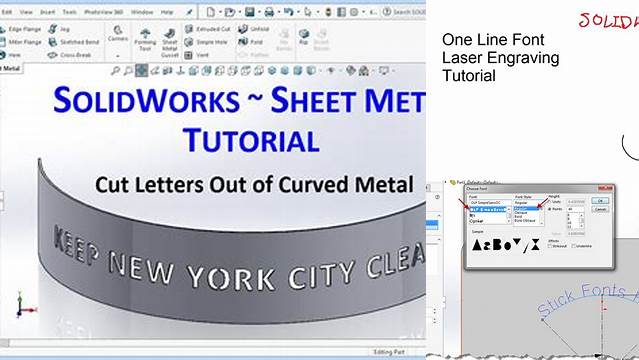
Best SolidWorks Fonts For Laser Cutting: A Detailed Guide
Laser cutting is a versatile and precise method for creating intricate designs from various materials. When using SolidWorks to design parts for laser cutting, the choice of text font is crucial for achieving optimal results. The right font ensures clean cuts, readability, and overall aesthetic appeal. In this comprehensive guide, we'll explore the best SolidWorks text fonts for laser cutting, covering various aspects to help you make informed decisions.
Understanding the Importance of Font Choice for Laser Cutting
When preparing designs for laser cutting, font choice is more than just an aesthetic consideration; it directly impacts the quality and efficiency of the cutting process. Selecting an appropriate font can minimize burning, reduce material waste, and ensure that the final product meets the desired specifications. A well-chosen font will have clean, crisp lines that the laser can follow accurately, resulting in a professional and polished outcome. Conversely, a poorly chosen font can lead to ragged edges, incomplete cuts, and overall dissatisfaction with the finished piece. Therefore, understanding the nuances of font selection is essential for anyone involved in laser cutting projects. Considerations such as the font's stroke width, the presence of serifs, and the complexity of the design elements all play a role in determining its suitability for laser cutting. By paying close attention to these factors, designers can optimize their projects for success.
The success of laser cutting hinges significantly on selecting the right font. The font's design influences how the laser interacts with the material, affecting both the cutting speed and the final quality of the product. For instance, fonts with sharp corners and intricate details can cause the laser to slow down, leading to increased burn marks and potential material warping. On the other hand, fonts with clean, smooth lines allow the laser to move more efficiently, resulting in cleaner cuts and reduced material stress. Moreover, the readability of the text after it has been laser-cut is also a critical factor. Fonts that are too thin or too complex may become illegible when rendered in physical form, undermining the purpose of including text in the design. Therefore, it is crucial to consider not only the aesthetic appeal of the font but also its practical implications for the laser-cutting process.
Ultimately, choosing the correct font is a balance between aesthetics and functionality. The ideal font should not only complement the overall design but also facilitate a smooth and efficient laser-cutting process. Factors such as the material being used, the size of the text, and the desired level of detail should all be taken into account when making this decision. By understanding the interplay between these variables, designers can select fonts that optimize both the visual appeal and the manufacturability of their laser-cut creations. This holistic approach ensures that the final product is not only visually stunning but also structurally sound and easy to produce. Therefore, investing time and effort in font selection is a worthwhile endeavor that can significantly enhance the quality and success of any laser-cutting project.
Top SolidWorks Fonts for Laser Cutting
When it comes to laser cutting with SolidWorks, certain fonts consistently outperform others due to their clean lines, simplicity, and compatibility with the cutting process. Among the top contenders are sans-serif fonts like Arial, Helvetica, and Futura. These fonts are characterized by their lack of serifs (the small decorative strokes at the end of letterforms), which makes them ideal for laser cutting as they produce cleaner and more precise cuts. Their straightforward design minimizes the risk of burning or material distortion, ensuring that the final product looks professional and polished. Additionally, these fonts are widely available and easy to work with in SolidWorks, making them a practical choice for designers of all skill levels.
Arial, in particular, is a popular choice for laser cutting due to its legibility and versatility. Its simple, unadorned design makes it easy for the laser to follow the contours of each letter, resulting in clean, crisp cuts. Similarly, Helvetica is another excellent option, known for its clean lines and balanced proportions. Futura, with its geometric shapes and modern aesthetic, is also well-suited for laser cutting, especially in contemporary designs. These fonts are not only easy to cut but also highly readable, ensuring that the text remains clear and legible even after it has been rendered in physical form. When selecting a font for laser cutting, it is essential to consider both its aesthetic appeal and its practical implications for the cutting process. By choosing a font that is both visually pleasing and easy to cut, designers can achieve optimal results.
Beyond the classic sans-serif options, there are other fonts that can also work well for laser cutting, depending on the specific requirements of the project. For example, fonts like Myriad Pro and Open Sans offer a slightly more modern and refined look while still maintaining the clean lines necessary for successful laser cutting. These fonts are particularly useful for projects that require a more contemporary aesthetic without sacrificing the precision and quality of the cut. However, it is essential to test these fonts on a small scale before committing to a large-scale project to ensure that they perform as expected. Factors such as the material being used, the size of the text, and the complexity of the design can all influence the outcome, so it is always best to err on the side of caution and verify the font's suitability before proceeding.
Font Considerations for Different Materials
The choice of material significantly influences the suitability of a font for laser cutting. For instance, when working with wood or acrylic, it's essential to consider how the laser interacts with these materials. Wood, being an organic material, can be more prone to burning, so fonts with thicker strokes and simpler designs are often preferred. This helps to minimize the risk of excessive burning and ensures that the text remains legible. Acrylic, on the other hand, is more sensitive to heat and can melt or warp if the laser moves too slowly or if the font has intricate details. Therefore, fonts with clean, smooth lines and minimal curves are ideal for cutting acrylic, as they allow the laser to move quickly and efficiently, reducing the risk of material distortion.
When laser cutting metal, the considerations are slightly different. Metal requires more power to cut through, and the heat generated can cause the material to warp or discolor. Therefore, it's crucial to choose fonts that are specifically designed for metal cutting, with wider strokes and minimal fine details. Fonts like Arial Black or Impact are often used for metal cutting, as their bold designs can withstand the high heat and power required to cut through the material. Additionally, it's essential to ensure that the font is properly vectorized and optimized for laser cutting to minimize the risk of errors or imperfections.
Furthermore, the thickness of the material also plays a crucial role in font selection. Thicker materials require more power and slower cutting speeds, which can increase the risk of burning or warping. In these cases, it's best to choose fonts with simpler designs and wider strokes to minimize the amount of heat applied to the material. Thinner materials, on the other hand, can be cut more quickly and easily, allowing for more intricate font designs. However, it's still important to consider the material's properties and choose a font that is appropriate for the specific application. By carefully considering the material and its properties, designers can select fonts that optimize both the visual appeal and the manufacturability of their laser-cut creations.
After adding the text, the next step is to ensure that the text is properly converted into geometry. This is typically done by using the